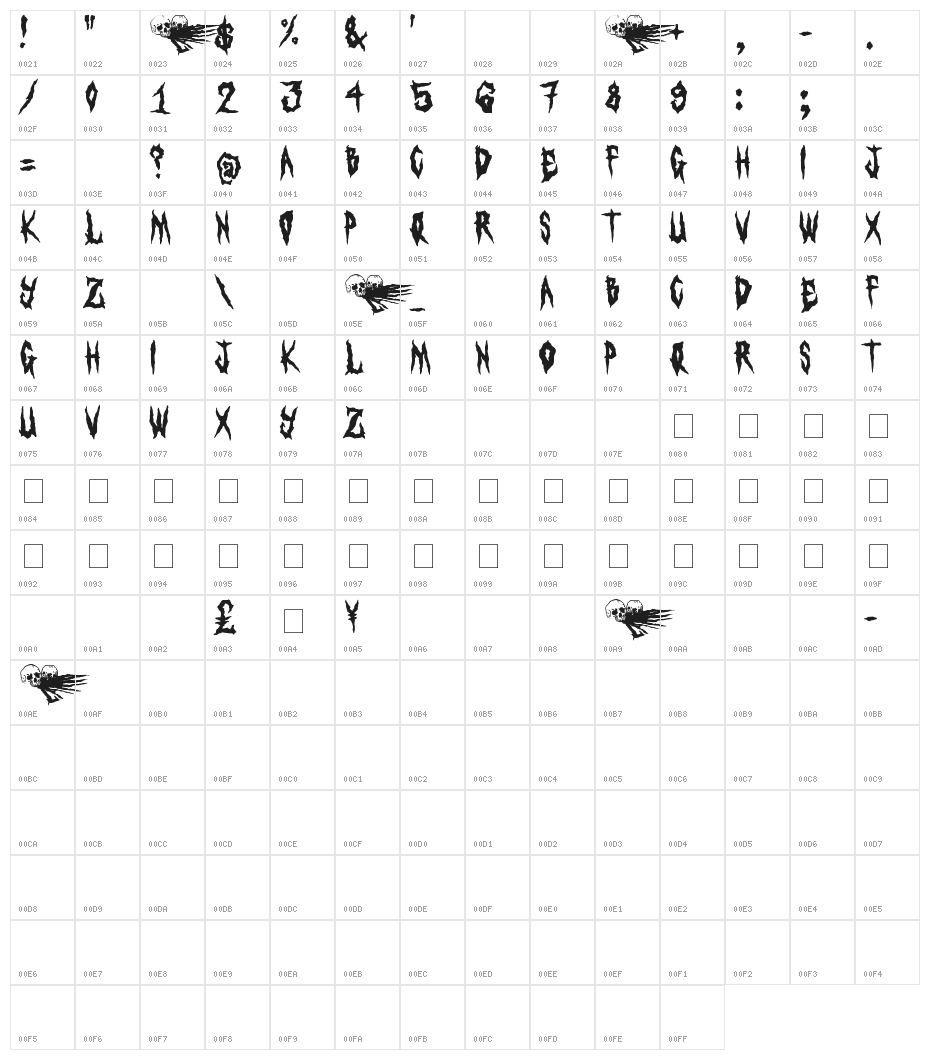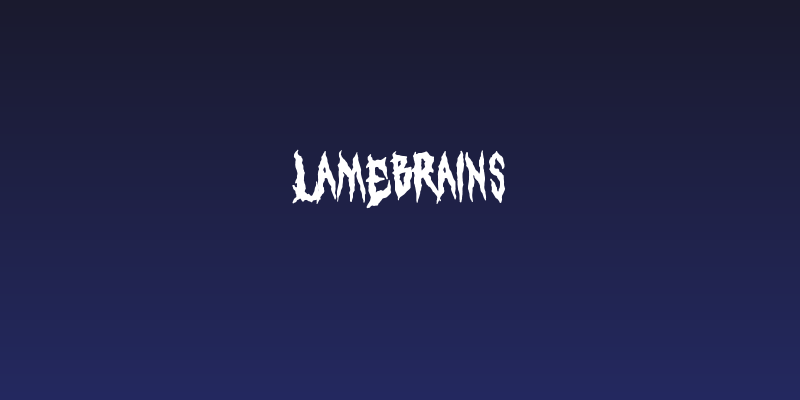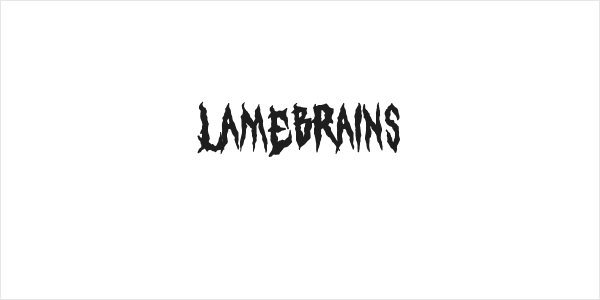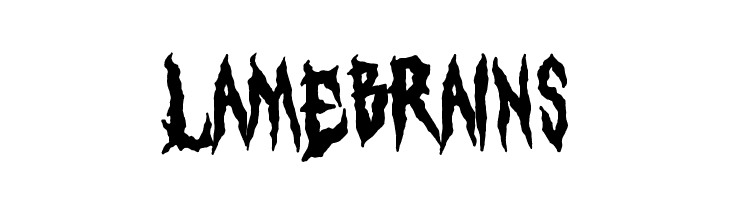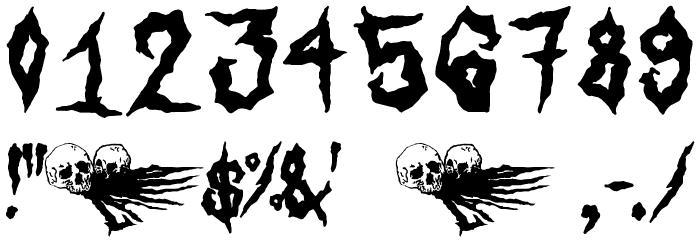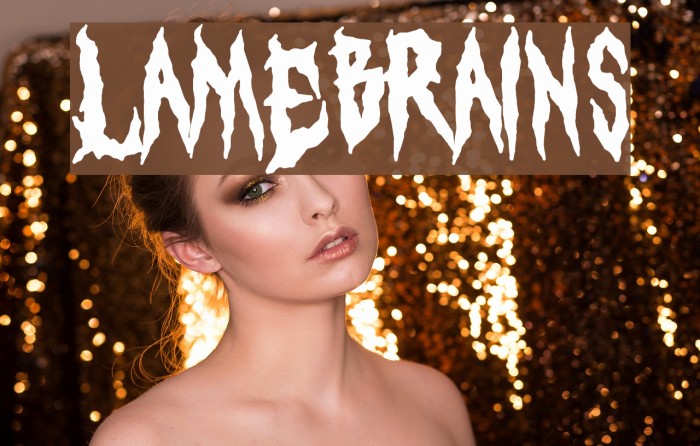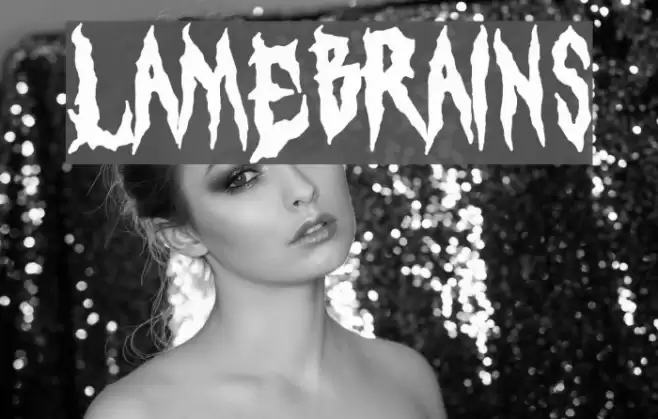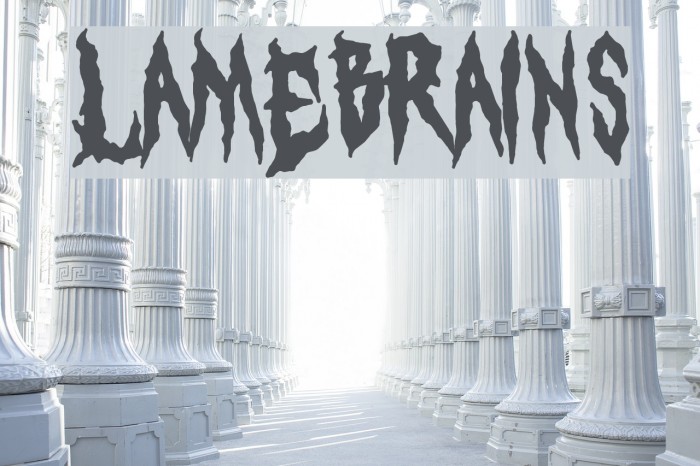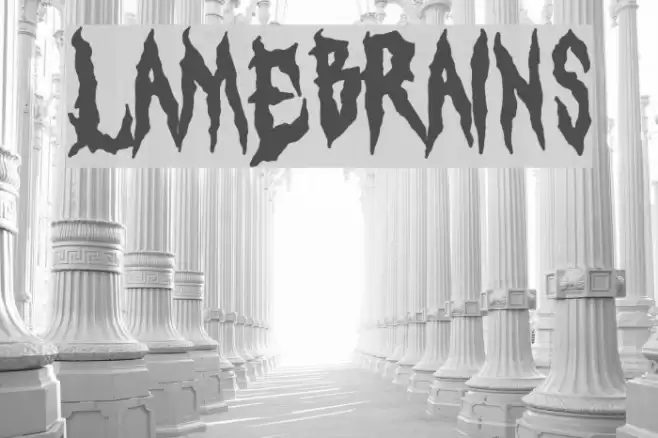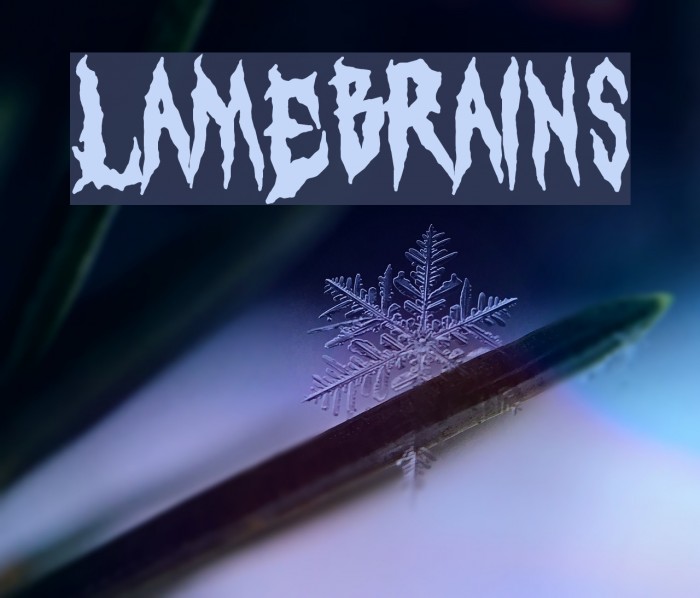
LAMEBRAINS Font
| Estilo geral | Edgy, Rebellious, Intense |
| Projetos propostos | Ideal for horror-themed designs, punk rock album covers, edgy branding, and attention-grabbing posters. |